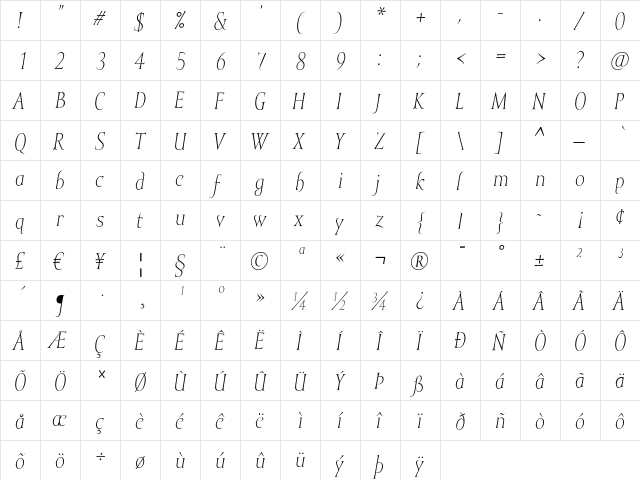
Mramor Light Light Italic Font Preview
Design Context for Mramor Light Typeface
Mramor Light offers clean, dependable letterforms without strong stylistic allegiance, making it a practical choice for designers who need flexibility. Its italic angle brings a sense of urgency and motion to the letterforms. Its slender proportions lend an understated elegance to any composition.
Pro Tip: Try Mramor Light for annotation and caption copy alongside an upright companion — the contrast in angle creates a dynamic but ordered typographic system.